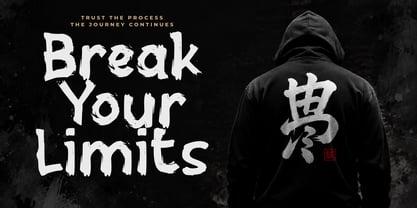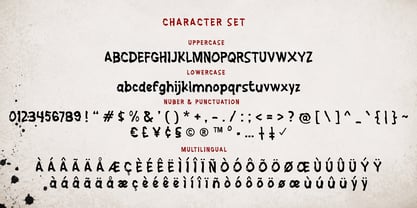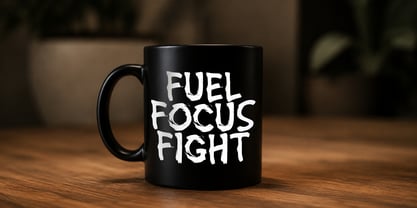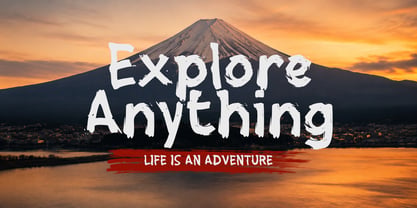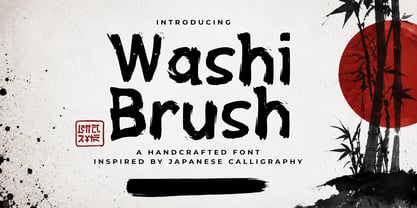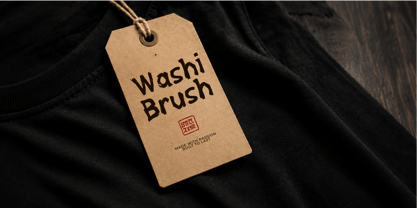
Washi Brush
por Letterytz CalliType
A família de fontes Washi Brush foi desenhada por Wahyu Eka Prasetya, Dian Angga Marytama e publicada pela Letterytz CalliType. Washi Brush contém 2 estilos e opções de pacote familiar. Saiba mais sobre esta família
Washi Brush is a bold and expressive handcrafted brush font inspired by traditional Japanese ink strokes and modern street lettering. Featuring authentic rough edges, natural brush textures, and energetic hand-painted character forms, this typeface delivers a powerful artistic feel for logos, branding, packaging, posters, apparel, social media graphics, book covers, and creative projects. Washi Brush combines raw brush authenticity with excellent readability, making it perfect for designs that demand personality, movement, and visual impact.
Features
• Uppercase & Lowercase Characters
• Numerals & Punctuation
• Multilingual Support
• Handcrafted Brush Texture
• Easy to Read
• Style: Regular & Oblique
Designers: Wahyu Eka Prasetya, Dian Angga Marytama
Fundição: Letterytz CalliType